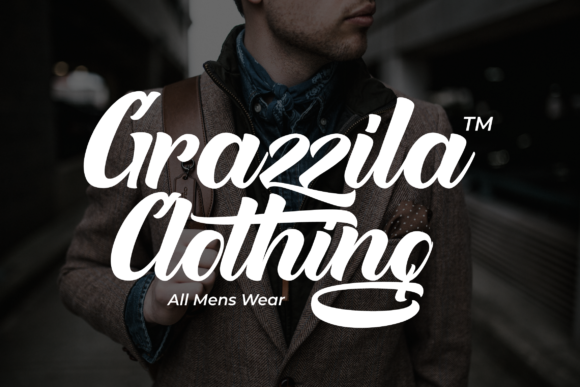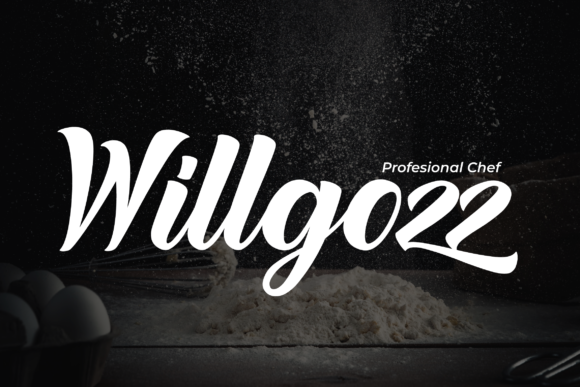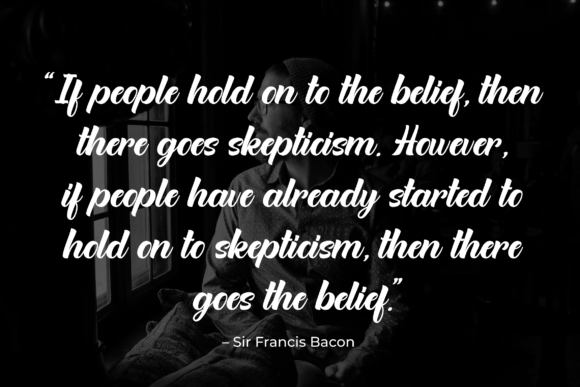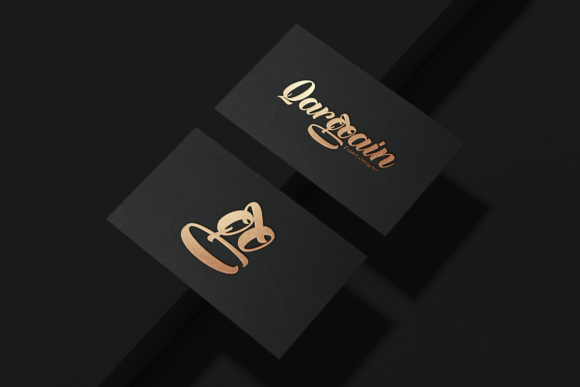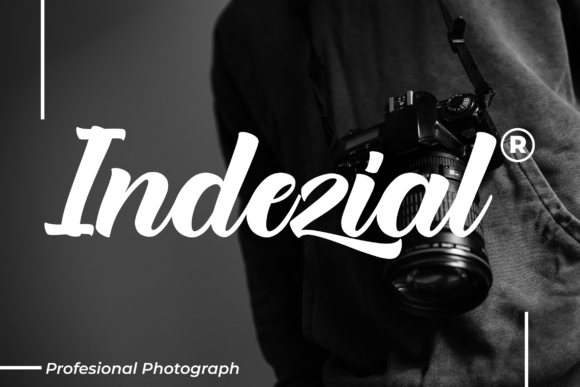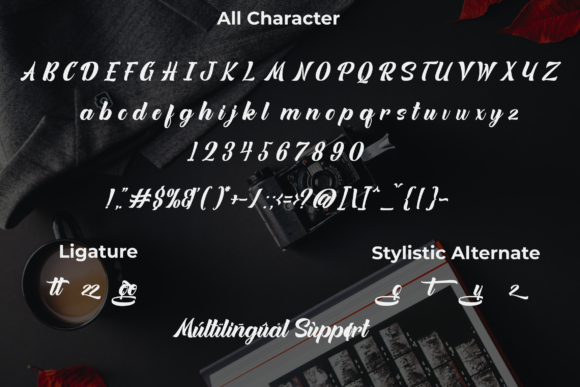
Quitgan Font
Quitgan is an incredibly original and dynamic script featuring modern swashes. Its unique approach to lettering will take any design idea to the next level.